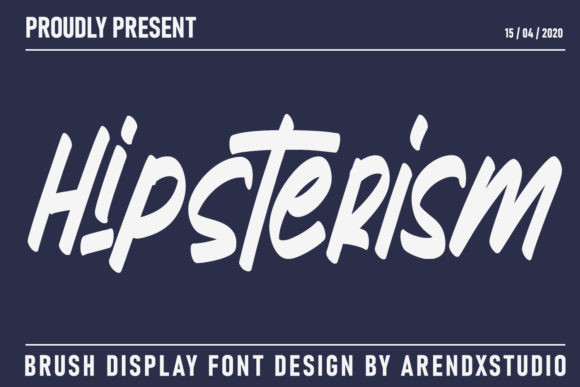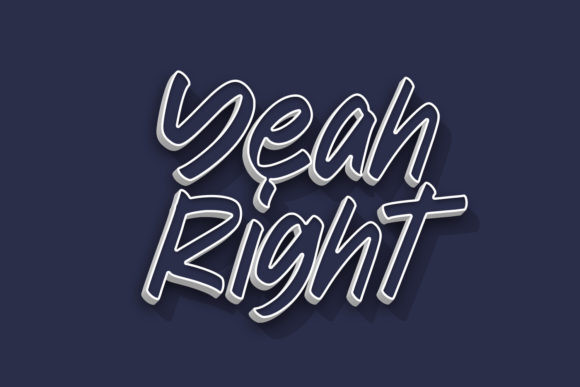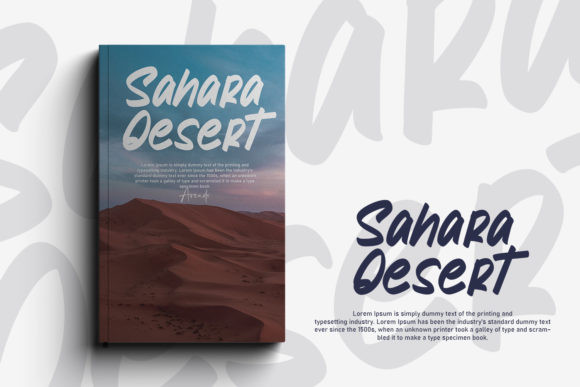
Hipsterism Font
Hipsterism is a bold display font, carefully handcrafted to become a true favorite. This font is the perfect fit for all of your logos, branding, social media, and crafty DIY projects.